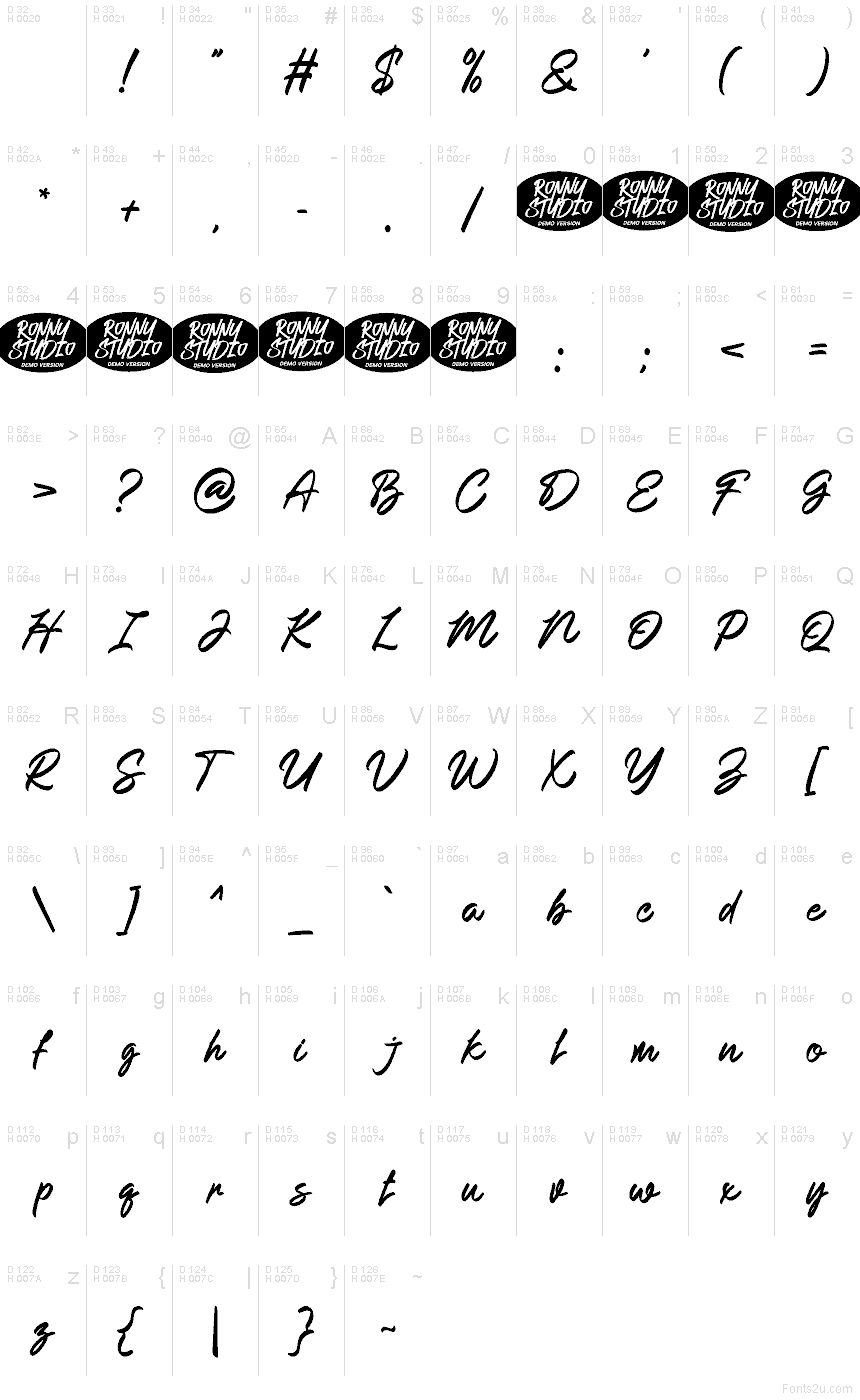
Baglietta DEMO
Baglietta font by Ronny Studio combines elegance and flowing script in a stunning handwritten design. This expressive font carries a modern feel with its signature style, making it ideal for projects that require a personal touch. Its luxurious and stylish appearance instantly captivates viewers, calling attention to every message presented.
Because of its versatility, this free handwritten font is an excellent choice to use on logos, name trademarks, packaging methods and boxes such as perfume packages. Use it for email signatures related to businesses with professional needs or easily decorate ads and posters since the natural handwriting design can elevate each project accordingly.